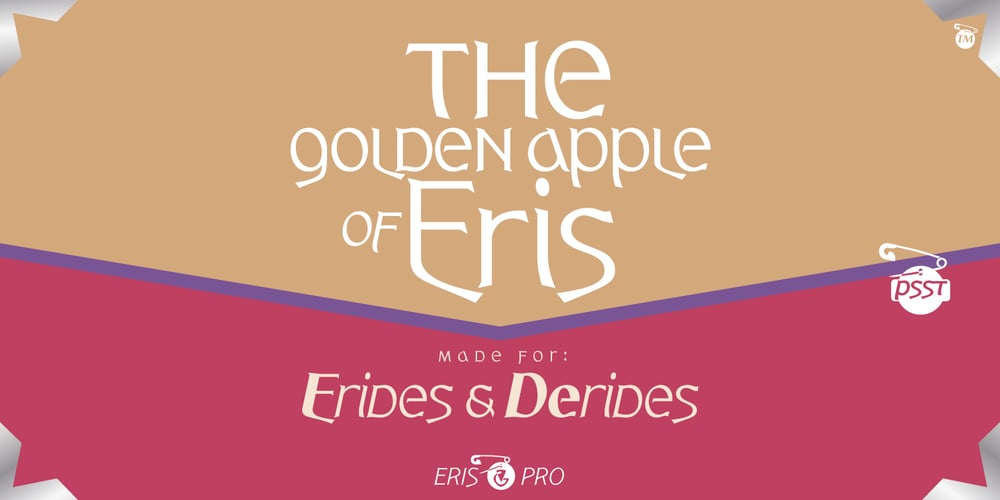
Eris Pro
Eris Pro font
Eris Pro Font Family was designed by Vangelis Dim. Gardikiotis and published by DBSV. Eris Pro contains 18 styles and family package options. Rolling gemstones… The name “Eris” is again borrowed from Greek mythology, is related to the myth “the apples of Hesperides” which were gold and one of them got the Erida!!! More about this myth can be found on the web… And in this font (as in one section in the “Cyceon” font) I have mixed in the lower case with the capitals in many letters.I tried here to give a different illustration in lowercase letters, simply because of whims or because the monotony is tiring me!!! One can also mix here with two levels to get a third color depiction using the “ErisPro-Black” with “ErisPro-Strap” or “ErisPro-BlackIt” with “ErisPro-StrapIt” This series is composed and includes twenty-four fonts with 658 glyphs each, with true italics and supports Latin, Greek and Cyrillic.